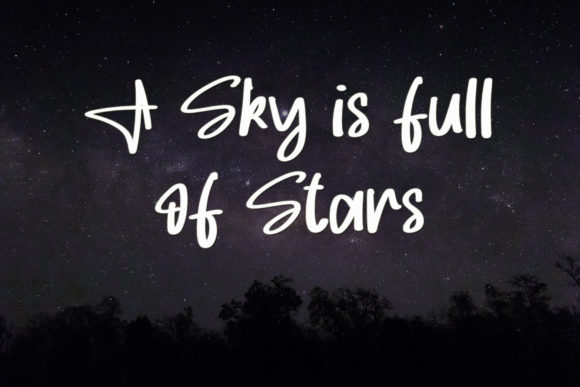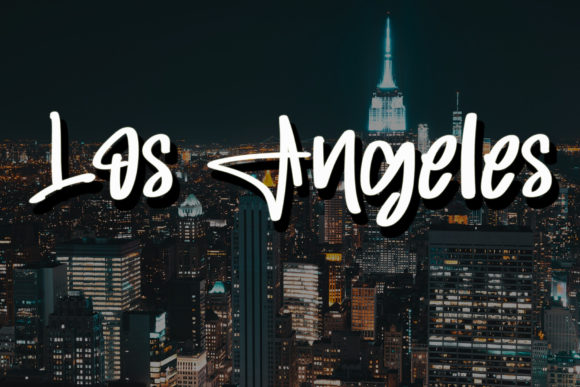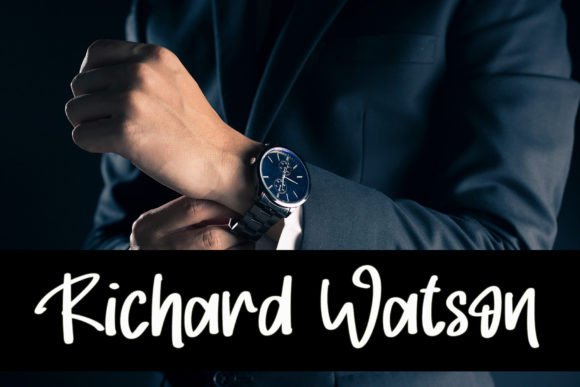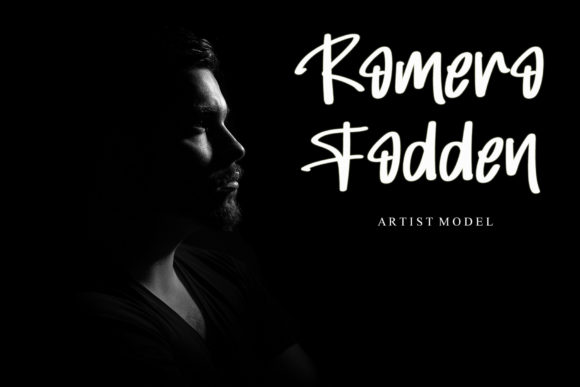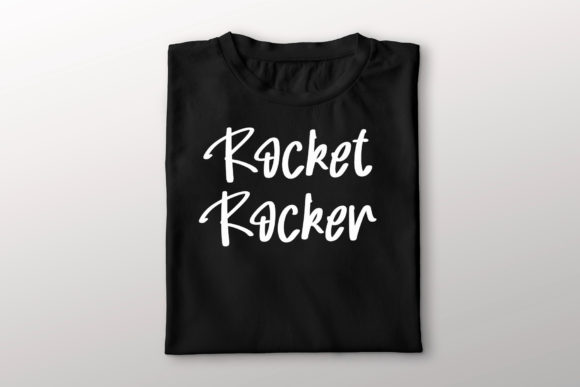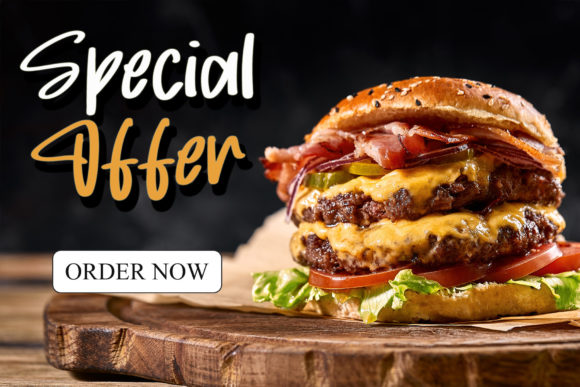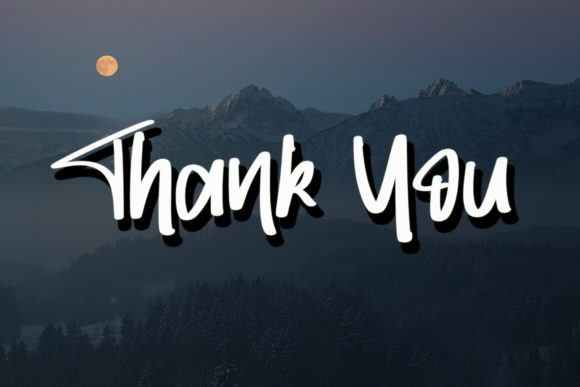
Moonlight Font
About Moonlight Font
“Moonlight”: Illuminate Your Designs with Natural and Tough Elegance
Introducing “Moonlight,” a captivating natural and display font that stands out with its strong brush touch and tough-looking demeanor. This font is ready to rock every design you want to create, bringing a bold and impactful presence to your projects. Perfect for logos, quotes, posters, clothing, and more, “Moonlight” is here to add a touch of rugged sophistication to your creative endeavors.
The strength of “Moonlight” lies in its robust brush strokes, giving it a tough and determined appearance. The natural elements in the font contribute to its authenticity, creating a genuine and powerful vibe. Whether you’re working on a logo that demands a bold statement or crafting impactful quotes and posters, this font is designed to leave a lasting impression.
The versatility of “Moonlight” makes it suitable for a variety of design applications. Imagine using it for clothing designs, where its tough elegance can enhance the overall aesthetic. The font’s ability to convey both strength and style makes it a valuable asset for creating visually striking and memorable designs.
Adding “Moonlight” to your creative projects is like infusing them with a burst of energy and attitude. The font’s tough-looking exterior is balanced by its underlying elegance, creating a dynamic and impactful combination. The brush touch adds an element of handcrafted authenticity, making it a standout choice for designs that require a touch of raw sophistication.
Incorporating “Moonlight” into your design toolkit opens up a world of possibilities. Its bold presence ensures that it leaves a mark on any project it graces. Whether you’re designing logos, quotes, posters, or clothing, let “Moonlight” be the font that adds a powerful and natural touch to your creative endeavors. Get ready to be amazed by the generated outcome as “Moonlight” illuminates your designs with its unique blend of strength and elegance.